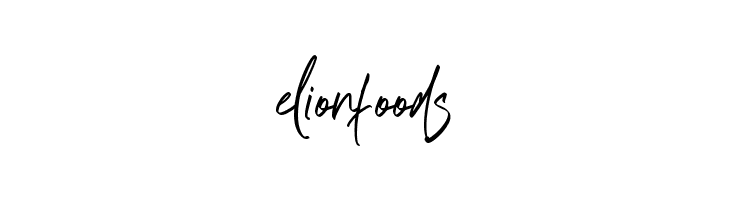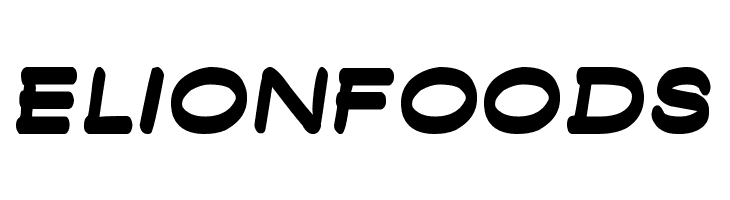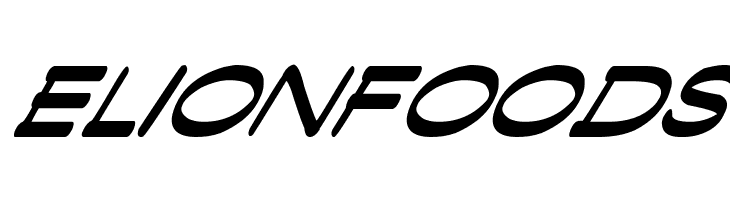
• Amatya Signature
A modern, elegant handwritten font with fluid, dynamic strokes.
• Amavos
A bold, handwritten-style font with brush-like strokes and playful energy.
• Ambambo
A bold, slanted font with a dynamic and playful style.
• Ambambo Bold
A bold, playful font with rounded, smooth characters and a dynamic slant.
• Ambambo Italic
A modern italic font with smooth, slanted letterforms and a sleek, dynamic appearance.
• ame graff
A bold, graffiti-inspired font with thick, rounded outlines and a playful urban style.
• AmeryBrush
A bold, brush-style font with dynamic, hand-painted strokes.
• Amoba
A bold, slab serif font with high contrast and strong visual impact.
• Amongus
A playful, hand-drawn font with a quirky, doodle-like style.
• Amore Kiena
A bold, dynamic serif font with high contrast and a modern flair.